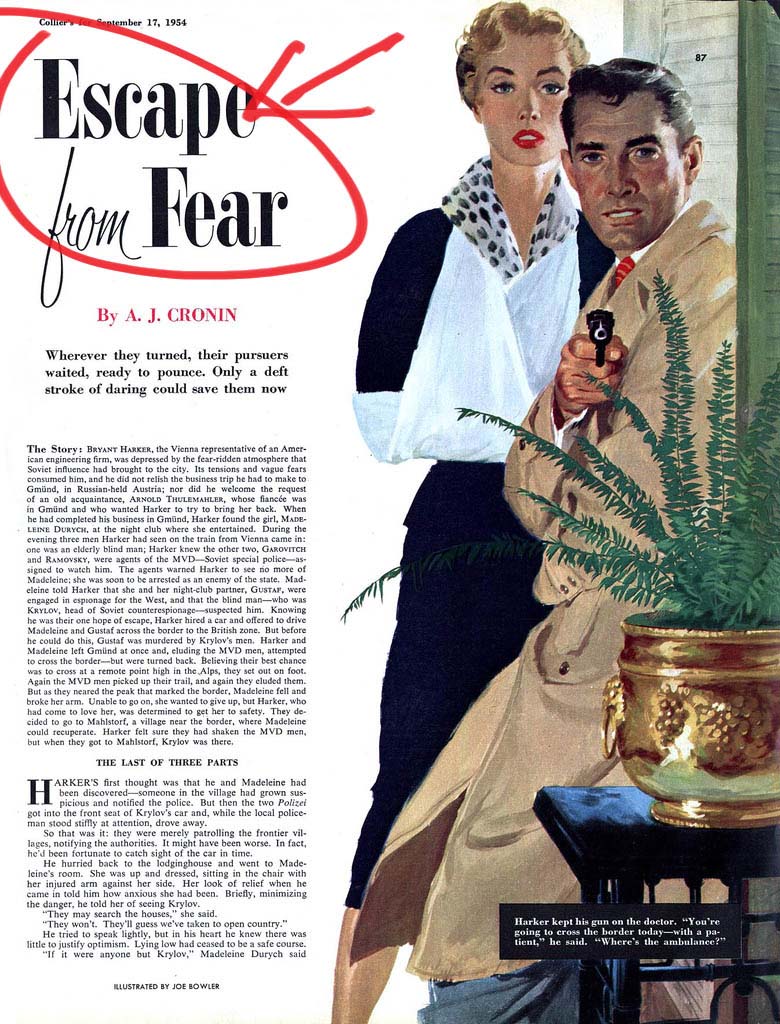
macdon401 macrumors 6502 Original poster Sep 6, 2006 #1 Hello ... ...can anyone tell me the name of this Retro face, I want to use it in a mag I'm Art Directing! Thank you very much. R Attachments TYPRFACE1.jpg 225.2 KB · Views: 173
WildCowboy Administrator/Editor Staff member Sep 6, 2006 #2 The best I could find is some version of Bodoni.
vectormasked macrumors member Sep 7, 2006 #3 HAHA!! Are you serious??? Do humanity a favour and use something better.
SwiftLives macrumors 65816 Sep 7, 2006 #4 Onyx at maybe 110% width would be really really close. But it really does look like Bodoni Compressed. You can also try http://www.identifont.com/
TumbleDryer macrumors 603 Sep 7, 2006 #5 vectormasked said: HAHA!! Are you serious??? Do humanity a favour and use something better. Click to expand... Agreed. 😀 Try Bodoni its similar but much more classy!
srobert macrumors 68020 Sep 7, 2006 #7 This one is also a close match but the ascendants are not as wide: http://www.myfonts.com/fonts/itc/fashion-compressed/ http://www.myfonts.com/fonts/bagraphics/fashion-didot/
B Blue Velvet Moderator emeritus Sep 7, 2006 #8 vectormasked said: HAHA!! Are you serious??? Do humanity a favour and use something better. Click to expand... Like what? Easy to sneer, much harder to offer constructive help.
macdon401 macrumors 6502 Original poster Sep 7, 2006 #9 ...it is a bit Retro ...but everyone has their opinion, and if Vectorman thinks its soooo bad, lets see some of his type design.! And I will gladly show some of mine. otherwise, Bodoni seems the closest but not exactly. Thank you all. R